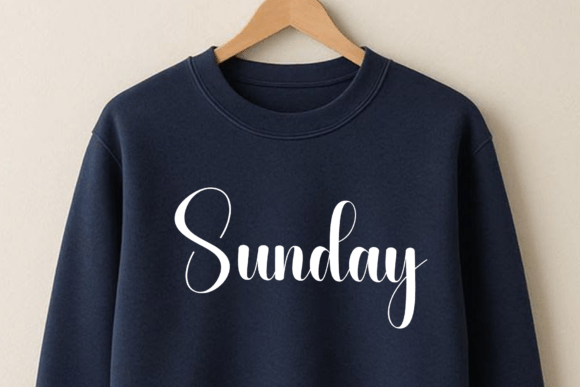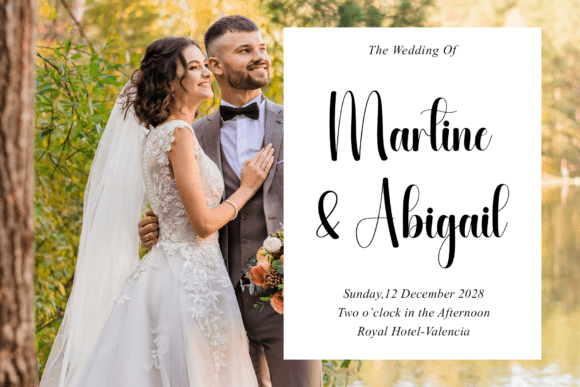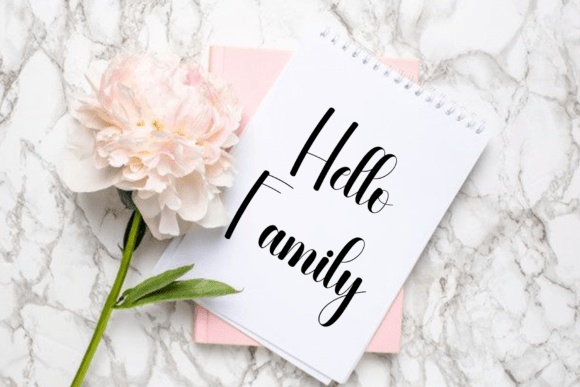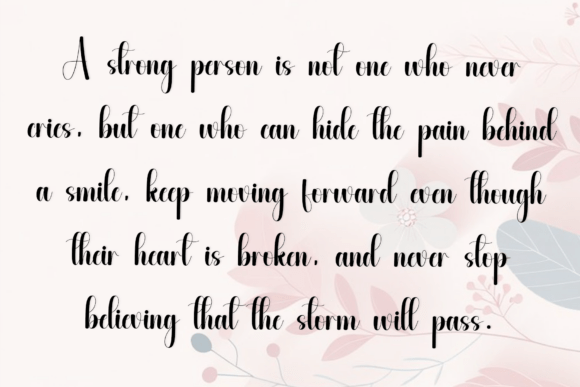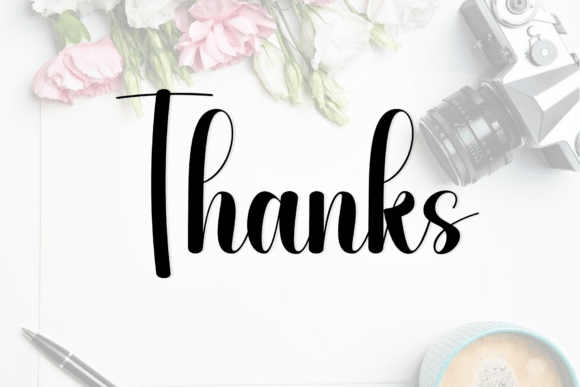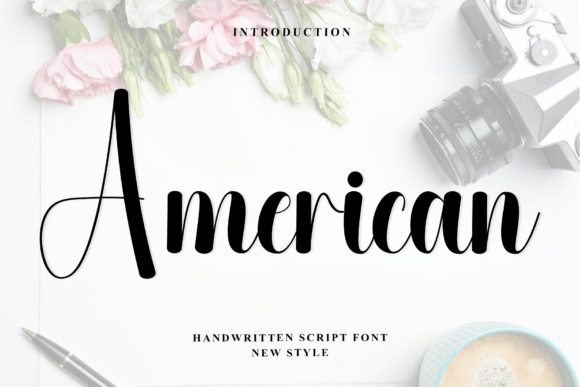
Introducing American Font: Elevate Your Design with Elegance and Sophistication
In the world of typography, a font can make or break the aesthetic of a design. For designers and crafters seeking to infuse their projects with a touch of luxury and sophistication, the American Font is an exceptional choice. This elegant and fluid handwritten script font is specifically designed to capture the essence of modern sophistication, making it perfect for a variety of high-end applications.
The Essence of American Font
American Font is a masterfully crafted typeface that exudes elegance and refinement. Its fluid, handwritten script lines convey a sense of luxury and poise, making it an ideal selection for projects that demand a high level of sophistication. Whether you’re designing luxury wedding stationery, intimate event branding, high-end editorial signatures, or sophisticated lifestyle photography overlays, American Font is the perfect choice.
Luxury Wedding Stationery and Event Branding
When it comes to wedding stationery and event branding, the font used can set the tone for the entire experience. American Font, with its elegant and refined aesthetic, is perfectly suited for luxury weddings and intimate events. Its sophisticated lines and fluid curves evoke a sense of romance and sophistication, making it an excellent choice for:
• Wedding invitations and save-the-date cards
• Custom event branding, including logos and signage
• Menu cards, place cards, and table runners
High-End Editorial Signatures and Lifestyle Photography Overlays
American Font is not only limited to wedding stationery and event branding. Its versatility makes it an excellent choice for high-end editorial signatures and lifestyle photography overlays. Use it to add a touch of sophistication to:
• Editorial spreads and magazine articles
• Lifestyle photography overlays, including quotes and captions
• Personal branding and social media graphics
Why Choose American Font?
With so many fonts available, why choose American Font? Here are just a few reasons why this elegant and fluid handwritten script font stands out:
• Unique and distinctive: American Font offers a unique and distinctive look that sets it apart from other fonts.
• Highly versatile: Its versatility makes it suitable for a wide range of applications, from luxury wedding stationery to high-end editorial signatures.
• Elegant and sophisticated: American Font exudes elegance and sophistication, making it perfect for designers and crafters seeking to create high-end designs.
Tips for Using American Font
To get the most out of American Font, here are a few tips to keep in mind:
• Use it sparingly: American Font is a statement font, so use it sparingly to avoid overwhelming your design.
• Pair it with complementary fonts: Pair American Font with complementary fonts to create visual interest and hierarchy.
• Experiment with different colors and textures: Experiment with different colors and textures to add depth and dimension to your design.
American Font is an exceptional choice for designers and crafters seeking to infuse their projects with elegance and sophistication. Its unique and distinctive look, versatility, and elegant aesthetic make it perfect for a wide range of high-end applications. Whether you’re designing luxury wedding stationery, intimate event branding, high-end editorial signatures, or sophisticated lifestyle photography overlays, American Font is sure to elevate your design to the next level.